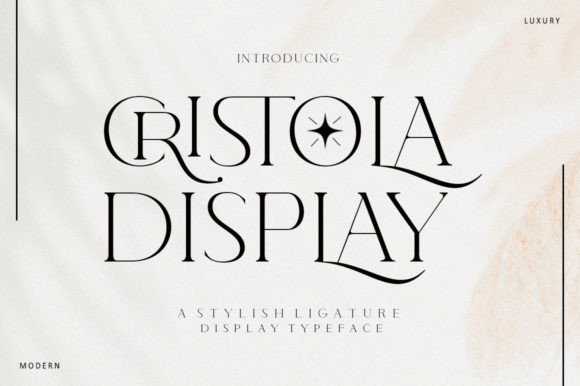
Introduction — What is Cristola Display?
Cristola Display is a sophisticated, charming font with a fashionable touch that stands out in the Display category. Designed for luxury, elegant, and feminine projects, this font brings a modern, chic design to any creative endeavor. Whether you're looking for Cristola Display free download or a premium option, it's easy to see why this font has become a favorite among designers. Its unique blend of elegance and versatility makes it perfect for a wide range of applications.
Letterforms and Visual Personality
The letterforms of Cristola Display are designed to convey sophistication and charm. Each character is crafted with attention to detail, ensuring that the font maintains a consistent style across all weights and sizes. The overall mood is elegant, making it ideal for high-end projects.
Compared to other Display fonts, Cristola Display offers a more refined look. It combines the boldness of a display font with the subtlety of a serif typeface, creating a unique visual appeal.
Weight and Spacing
Cristola Display features a balanced weight that ensures readability without sacrificing style. The spacing between letters is carefully adjusted to maintain legibility even at smaller sizes. This makes it suitable for a variety of uses, from website headers to printed materials.
Cristola Display for Logo Design
If you're working on a logo design project, Cristola Display can add a touch of elegance and sophistication. Its stylish appearance makes it an excellent choice for brands that want to convey a sense of luxury and exclusivity.
Cristola Display for Wedding Invitations
Cristola Display is particularly well-suited for wedding invitations and cards. Its feminine and charming style complements the romantic theme of weddings, making it a popular choice among event planners and designers.
Cristola Display for Branding
When it comes to branding, Cristola Display is a versatile option that can be used for everything from business cards to packaging. Its modern and chic design helps create a cohesive brand identity that stands out.
Font Pairing & Combinations
One of the key aspects of using Cristola Display effectively is knowing which fonts pair well with it. A good font pairing can enhance the overall design and make your message more impactful.
What fonts pair well with Cristola Display? For a balanced look, consider pairing it with a clean sans-serif font like Helvetica for body text. Alternatively, a script font can add a touch of elegance when used for headings or accents.
Cristola Display font pairing is essential to achieving a professional and polished design. Experiment with different combinations to find what works best for your specific project.
Designer Notes & Tips
As a designer, it's important to test Cristola Display in different contexts. Consider how it looks in black and white, and check its readability at small sizes. This will help ensure that it performs well across all mediums.
Cristola Display vs similar fonts can provide insight into its unique qualities. When compared to other Display fonts, Cristola Display stands out for its balance of elegance and modernity.
Overall, Cristola Display is a valuable addition to any designer's toolkit. Whether you're working on a personal project or a commercial venture, this font offers a stylish and sophisticated solution that can elevate your design work to new heights.